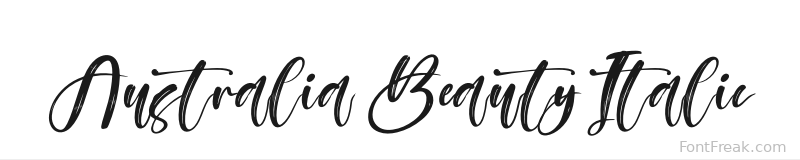
Australia Beauty
Australia Beauty Italic
Introducing the Australia Beauty font by Perspectype Studio, a stunning display script that embodies elegance and charm. Released in 2021 under a freeware license, this font captures the essence of beauty with its flowing, cursive design. The Australia Beauty font features a medium stroke weight, providing a balanced contrast that enhances its readability while maintaining a graceful appearance. The letterforms are characterized by smooth curves and artistic flourishes, which add a decorative touch without overwhelming the viewer. The generous spacing between letters contributes to its airy feel, making it suitable for various design applications.
This versatile font is ideal for a range of creative projects. It shines particularly in wedding invitations, where its romantic style sets the perfect tone for special occasions. Additionally, Australia Beauty is an excellent choice for movie posters, especially those seeking a whimsical or artistic flair. Small business owners can utilize this font for restaurant menus, adding a touch of sophistication that elevates the dining experience. Content creators can also leverage its unique style for branding materials and social media graphics, ensuring their content stands out in a crowded digital space.
Targeted towards graphic designers, small business owners, and content creators alike, Australia Beauty offers a fresh and appealing option for those looking to enhance their visual communication. The combination of elegance and versatility makes this font a valuable asset for anyone in the creative industry.
What sets the Australia Beauty font apart is its unique blend of artistic expression and practicality. It effortlessly combines beauty with functionality, making it an indispensable tool for anyone looking to make a lasting impression. For those interested, the Australia Beauty font free download is readily available, allowing you to incorporate this exquisite typeface into your next project.